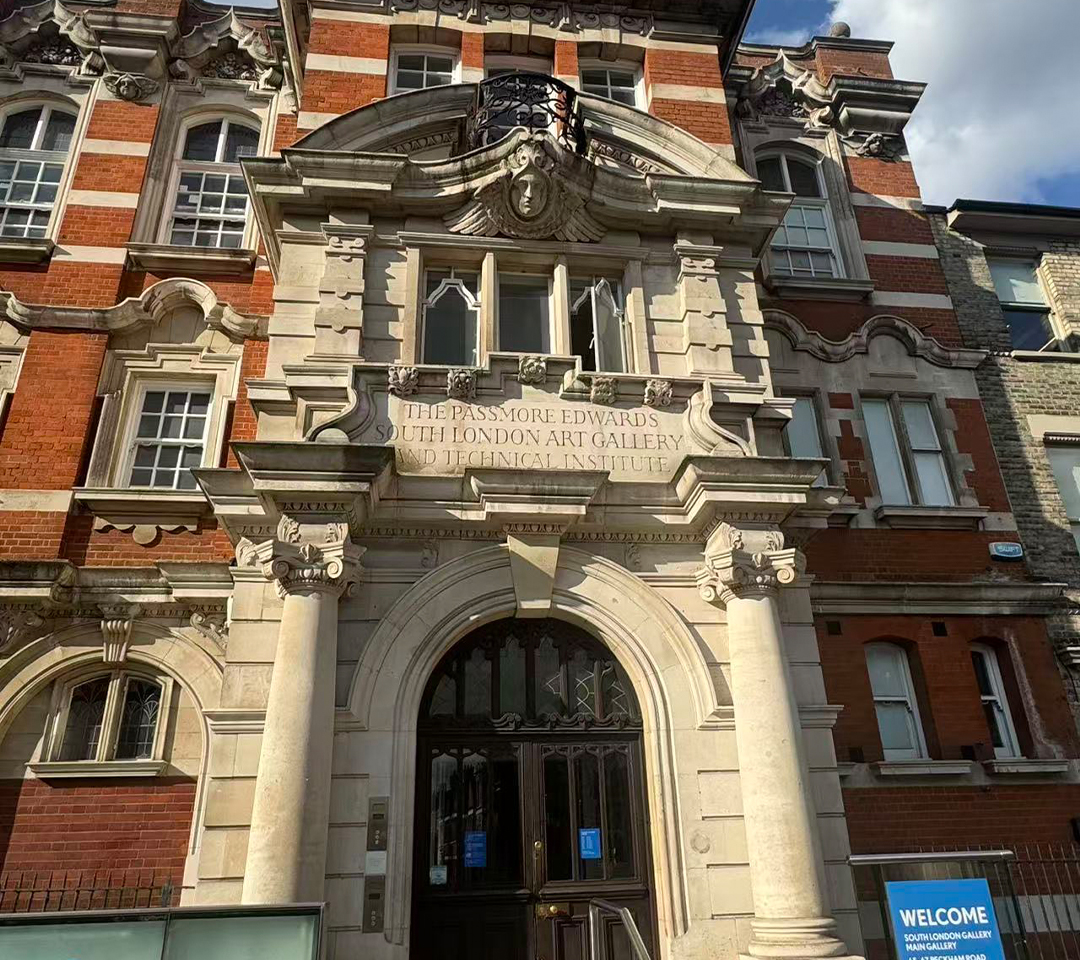
Gallery is a display typeface developed from observations of the South London Gallery. The letterforms are based on the building's architectural features, including arches, symmetry, and block-like stone structures. After the design process, the typeface was found to be most suitable for use in titles and promotional materials. Its structured and square forms work well for cultural and community events, such as small-scale festivals or public activities.